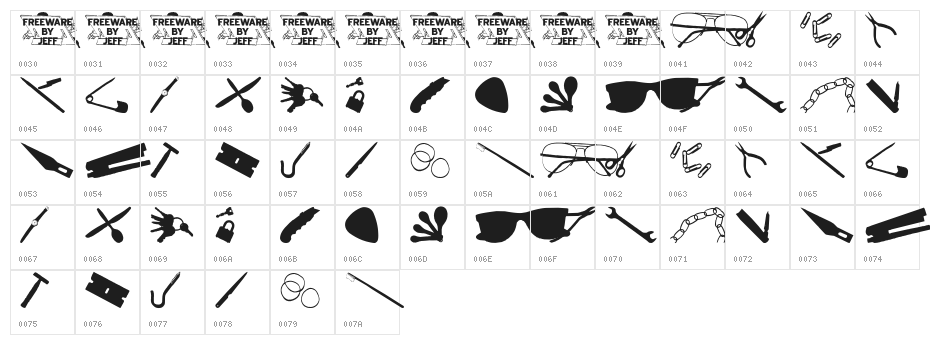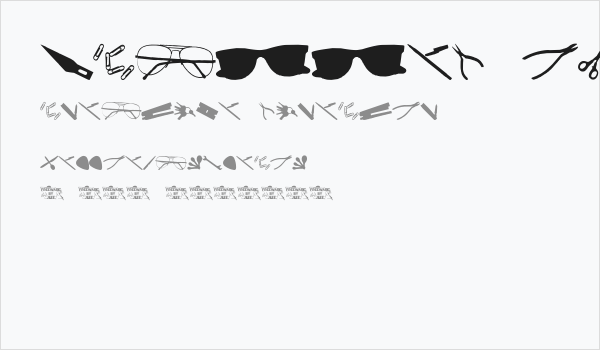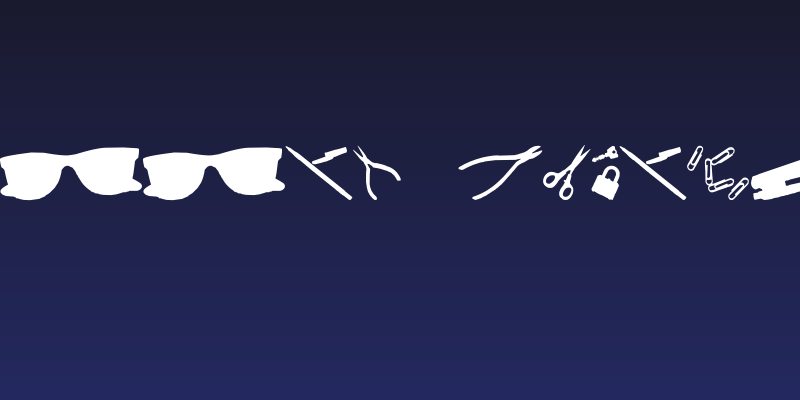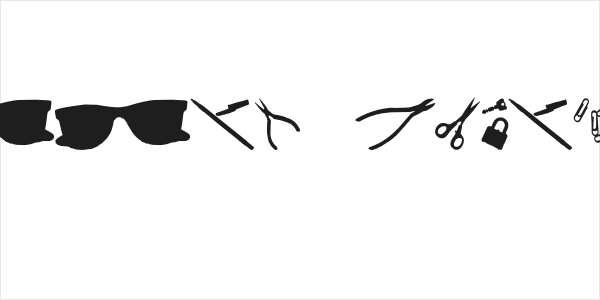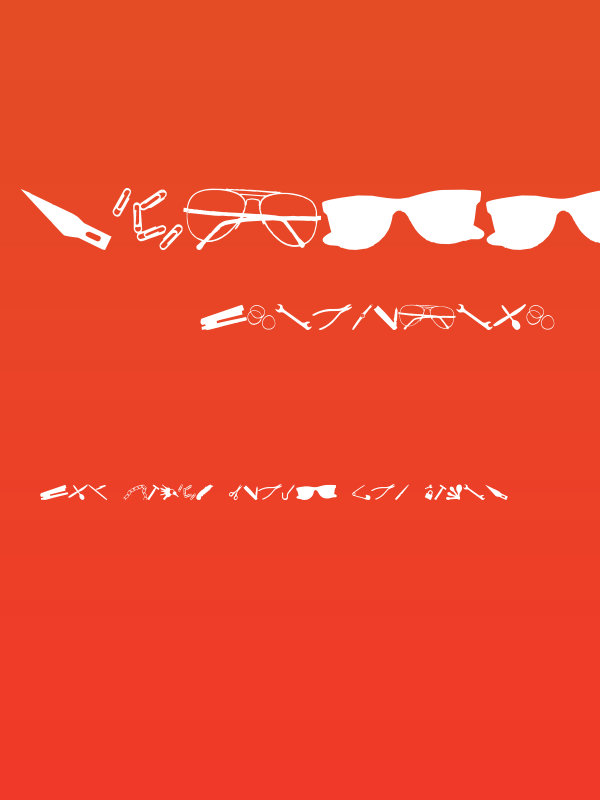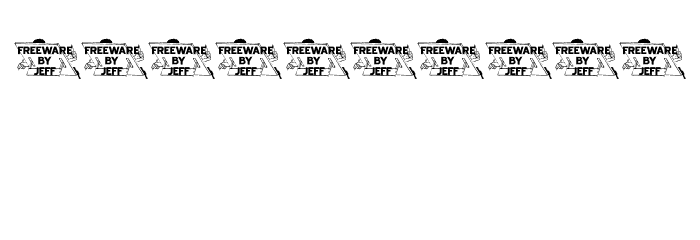
Scanned Objects JL Font
Scanned Objects JL Description
A highly decorative and playful font where each character is represented by a unique scanned object or silhouette, such as sunglasses, tools, jewelry, and other miscellaneous items, creating a collage-like effect. The glyphs are bold, irregular, and visually distinct, making each letterform easily recognizable as an object rather than a traditional typographic shape.
| Overall Style | Decorative, Playful, Artistic |
| Use Case | Logos, Headlines, Posters, Art projects |
| Proposed Projects | Posters, album covers, art projects, event flyers, creative branding, children’s materials. |